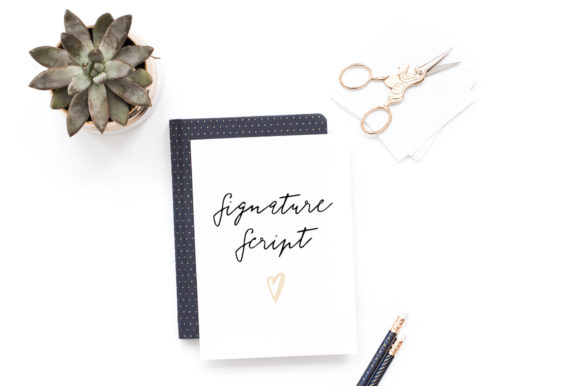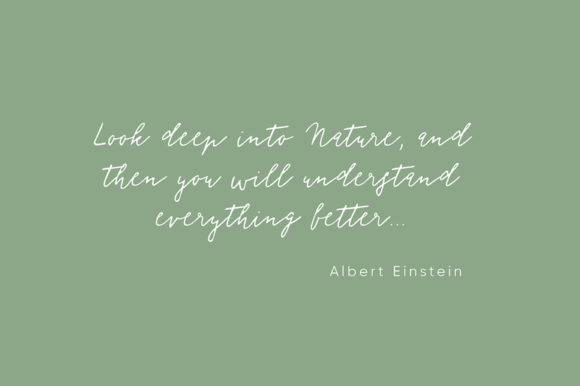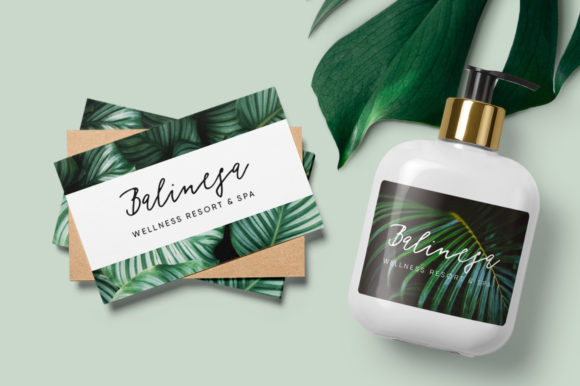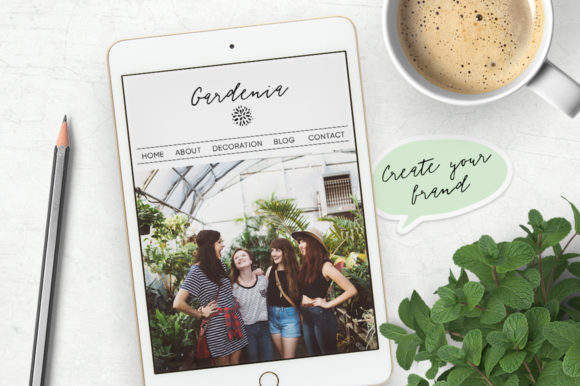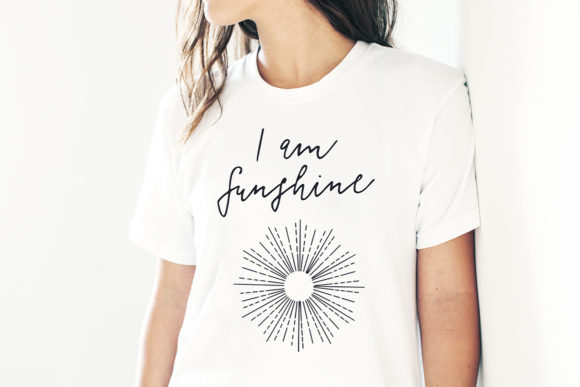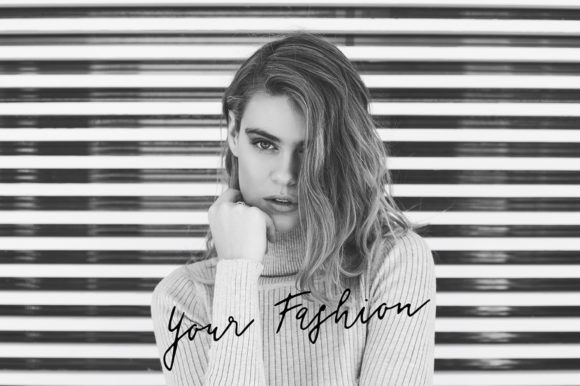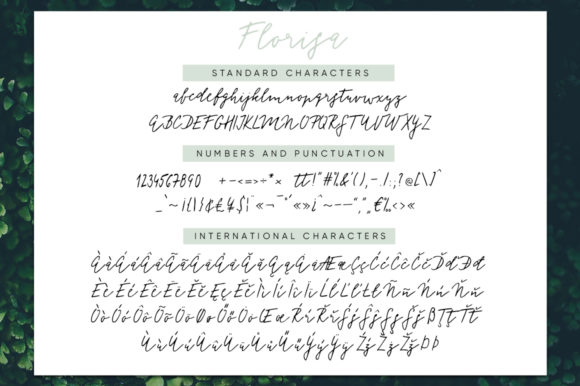
Florisa Font
About Florisa Font
The Florisa is an amazing hand-lettered monoline signature script. It will give your work an artistic & natural handmade feel and is great for branding, logos, blog, wedding announcements, greeting cards, invitations, and much more!